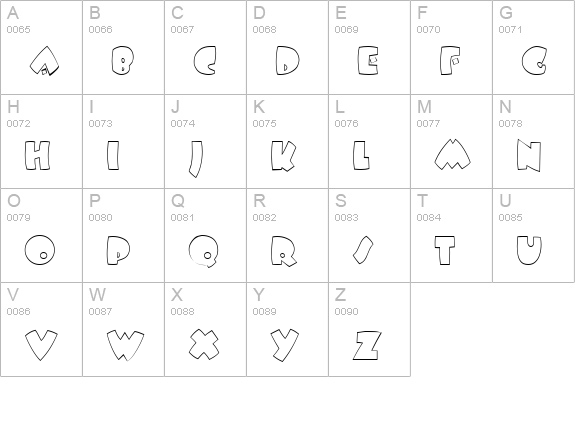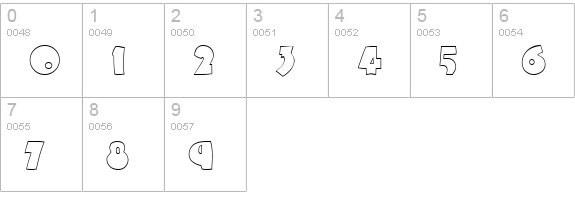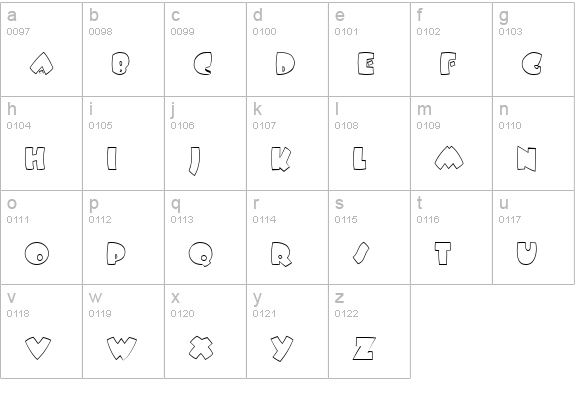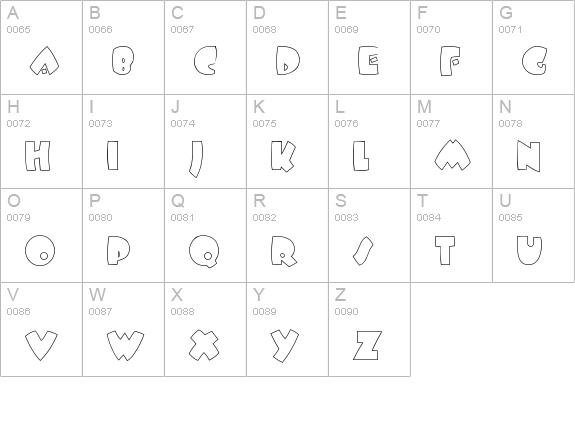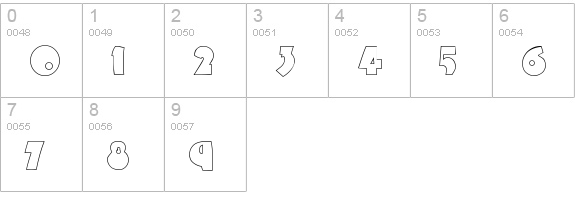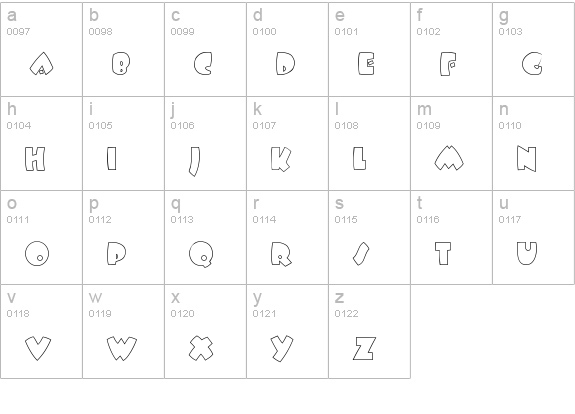
IdomeneoOpen Font Details
IdomeneoOpen is a stunning and versatile font that combines elegance with a touch of modernity. Its clean lines and balanced proportions make it perfect for a wide range of design projects, from branding to editorial design. With its timeless appeal, IdomeneoOpen adds a sophisticated touch to any creative endeavor. One of the best things about IdomeneoOpen is that it is free to download at FontsMarket.com. This means that you can easily access this beautiful font and use it in your projects without any cost. Whether you are a professional designer or a hobbyist, IdomeneoOpen is a valuable addition to your font collection. IdomeneoOpen features a full set of uppercase and lowercase letters, numbers, punctuation marks, and special characters, giving you plenty of flexibility to create unique and eye-catching designs. Its smooth curves and crisp edges ensure that your text will always look polished and professional. Overall, IdomeneoOpen is a must-have font for anyone looking to elevate their design work. Its combination of elegance, versatility, and affordability make it a valuable asset for any project. Download IdomeneoOpen today and see for yourself the impact it can have on your designs.